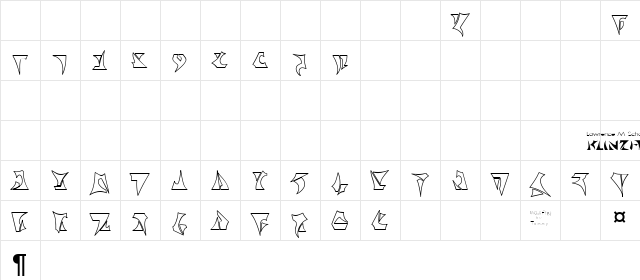
ST Klinzhai Hollow Regular
Design Context for ST Klinzhai Hollow Typeface
ST Klinzhai Hollow is a composed and adaptable typeface that performs quietly and consistently across a wide range of design contexts.